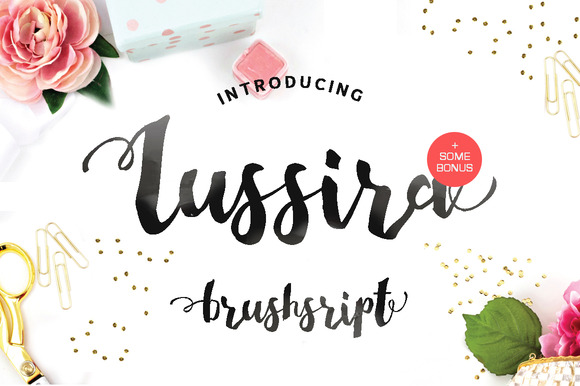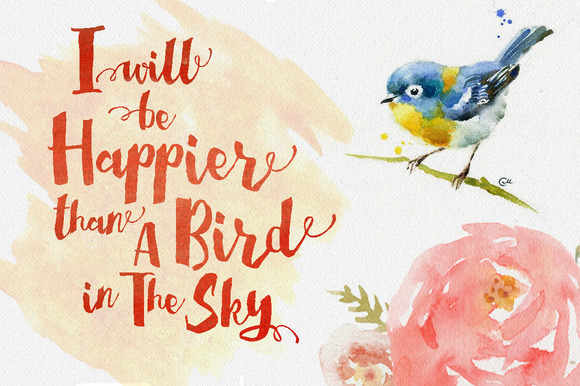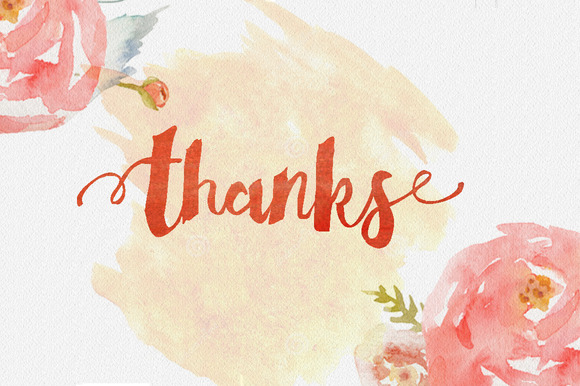
Lussira Brushscript Font
About Lussira Brushscript Font
Lussira Brush Script is a completely handwritten typeface made with watercolors and a calligraphy brush. It is a beautiful hand painted script that comes with a set of extras. It can be used for various purposes such as headings, logos, invitations, t-shirt designs, greeting cards, posters, labels, book covers, brochures and much more.